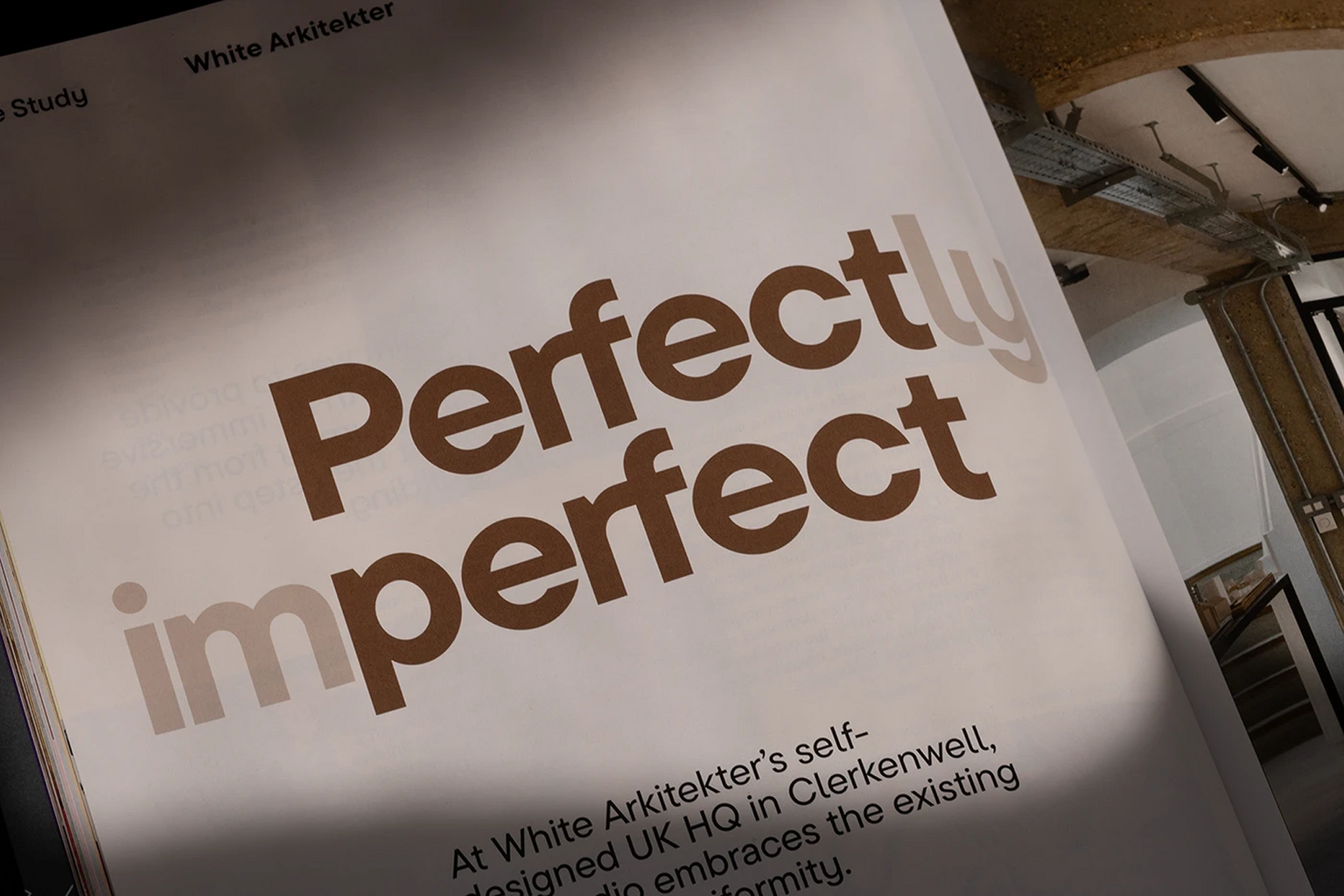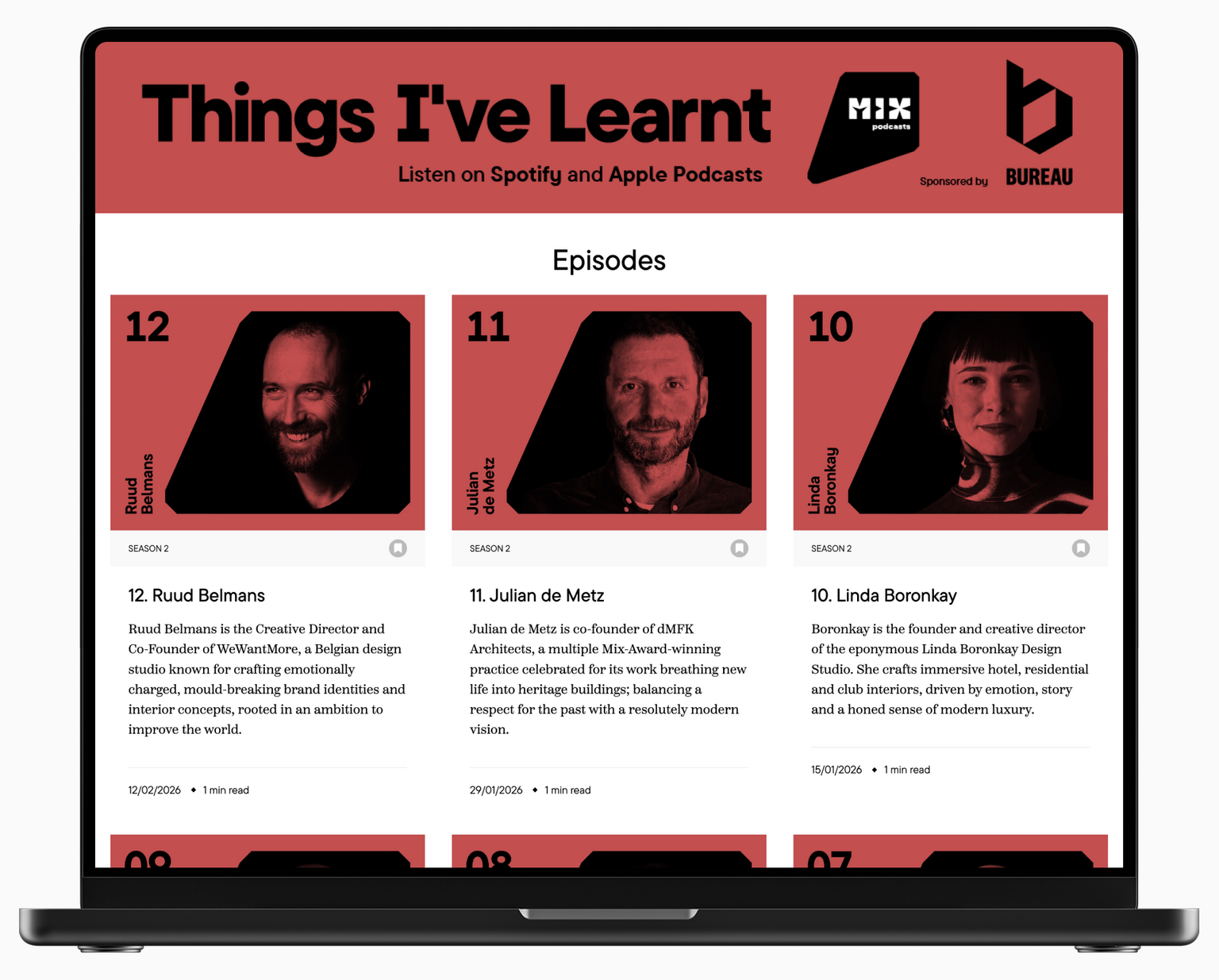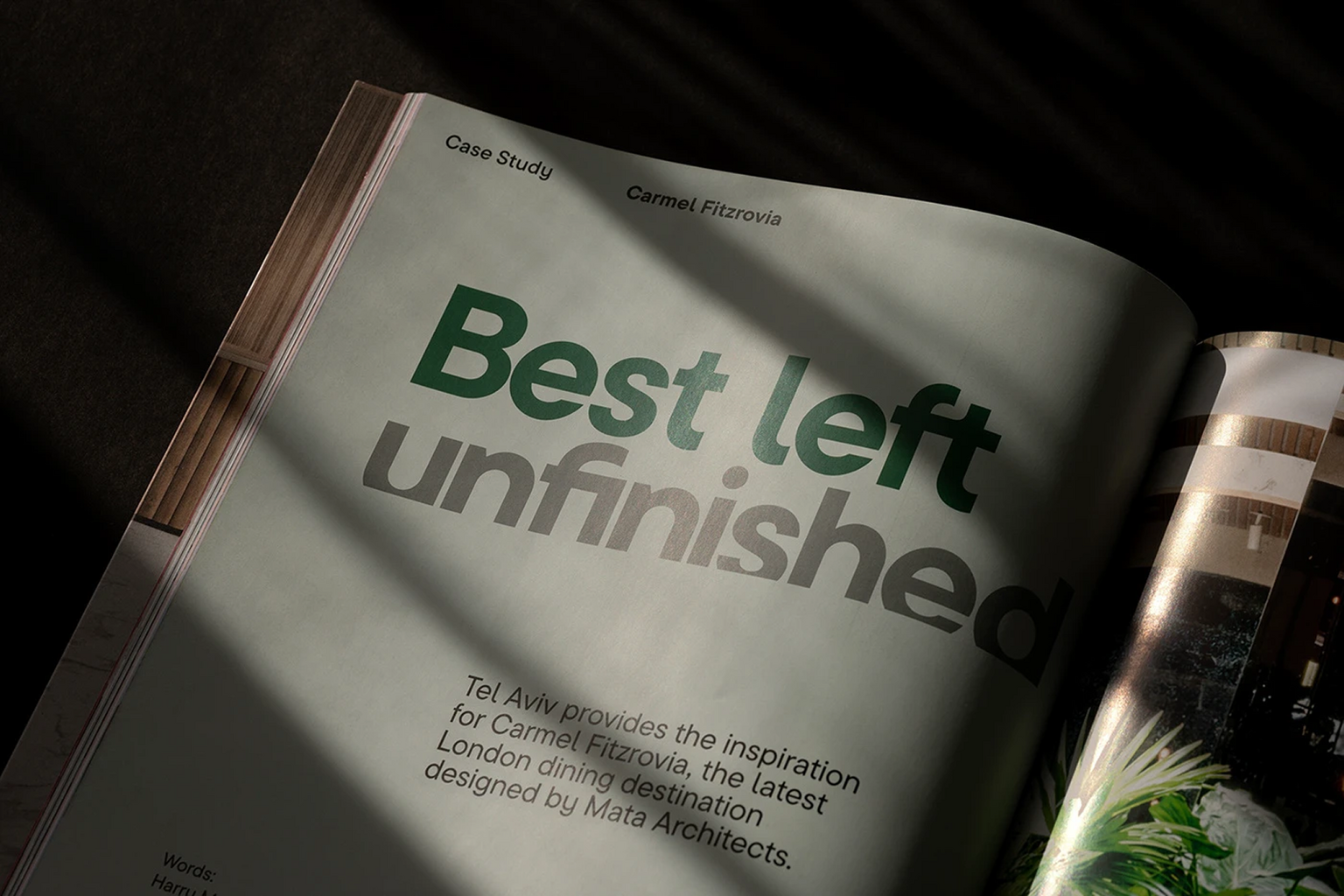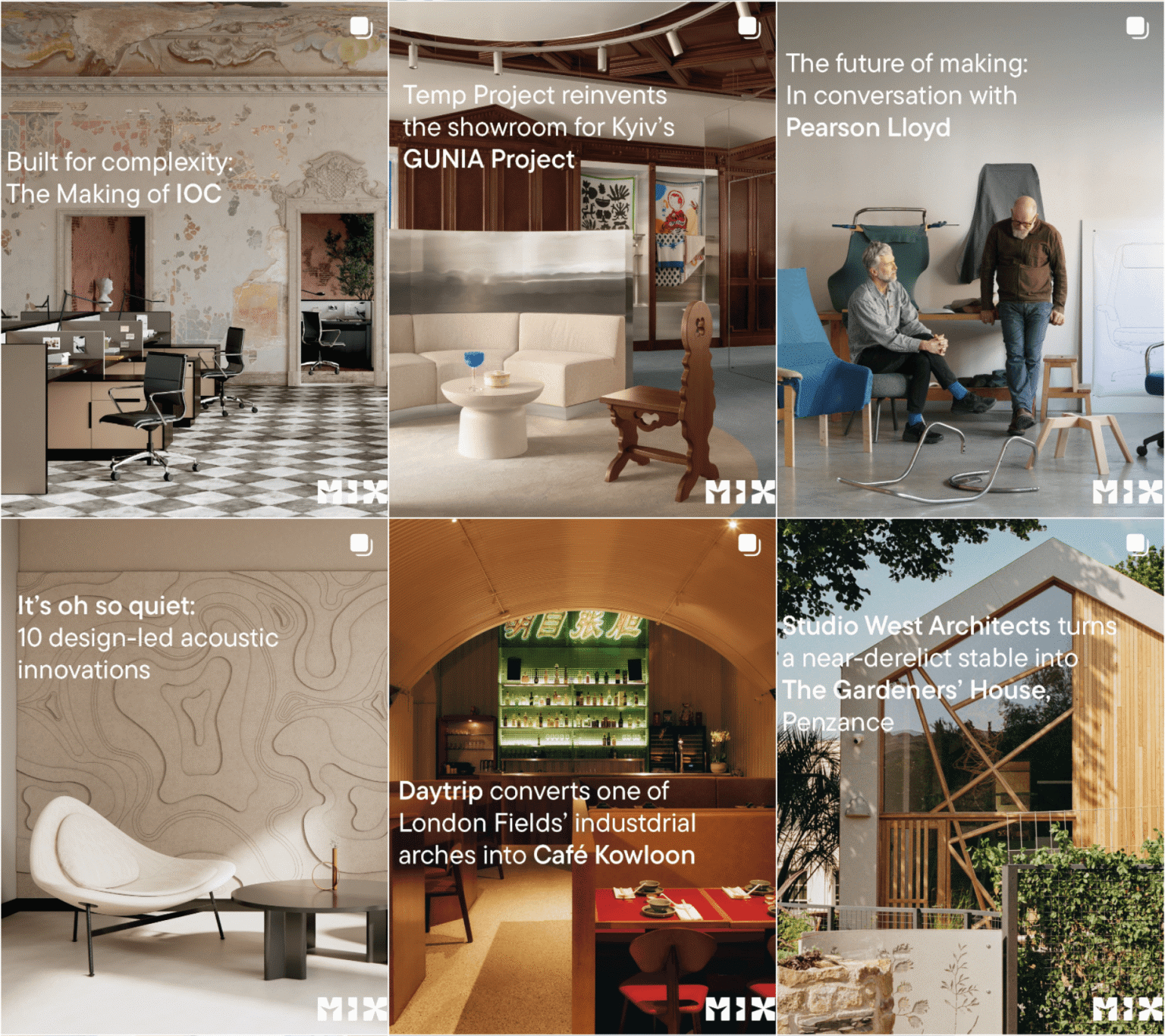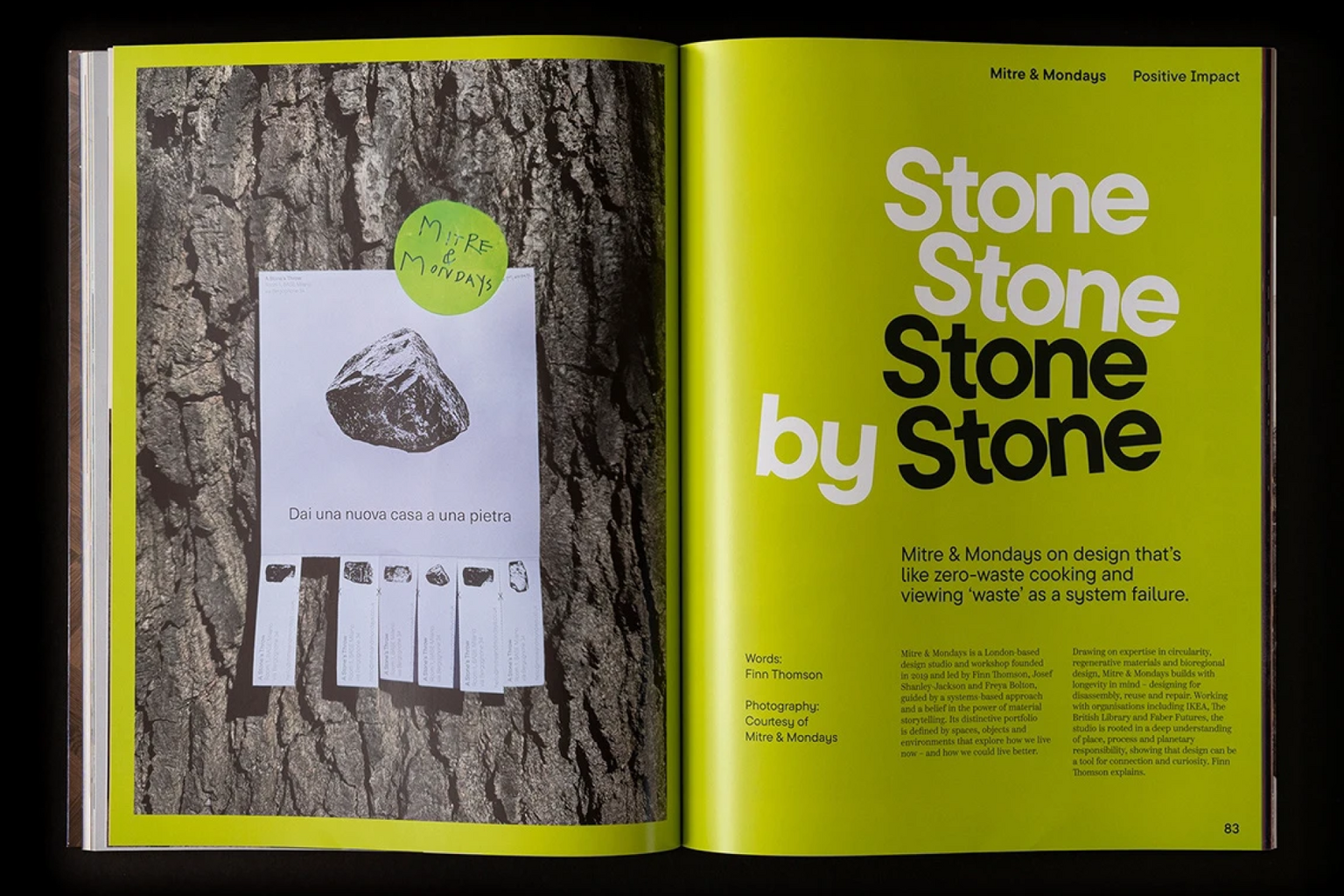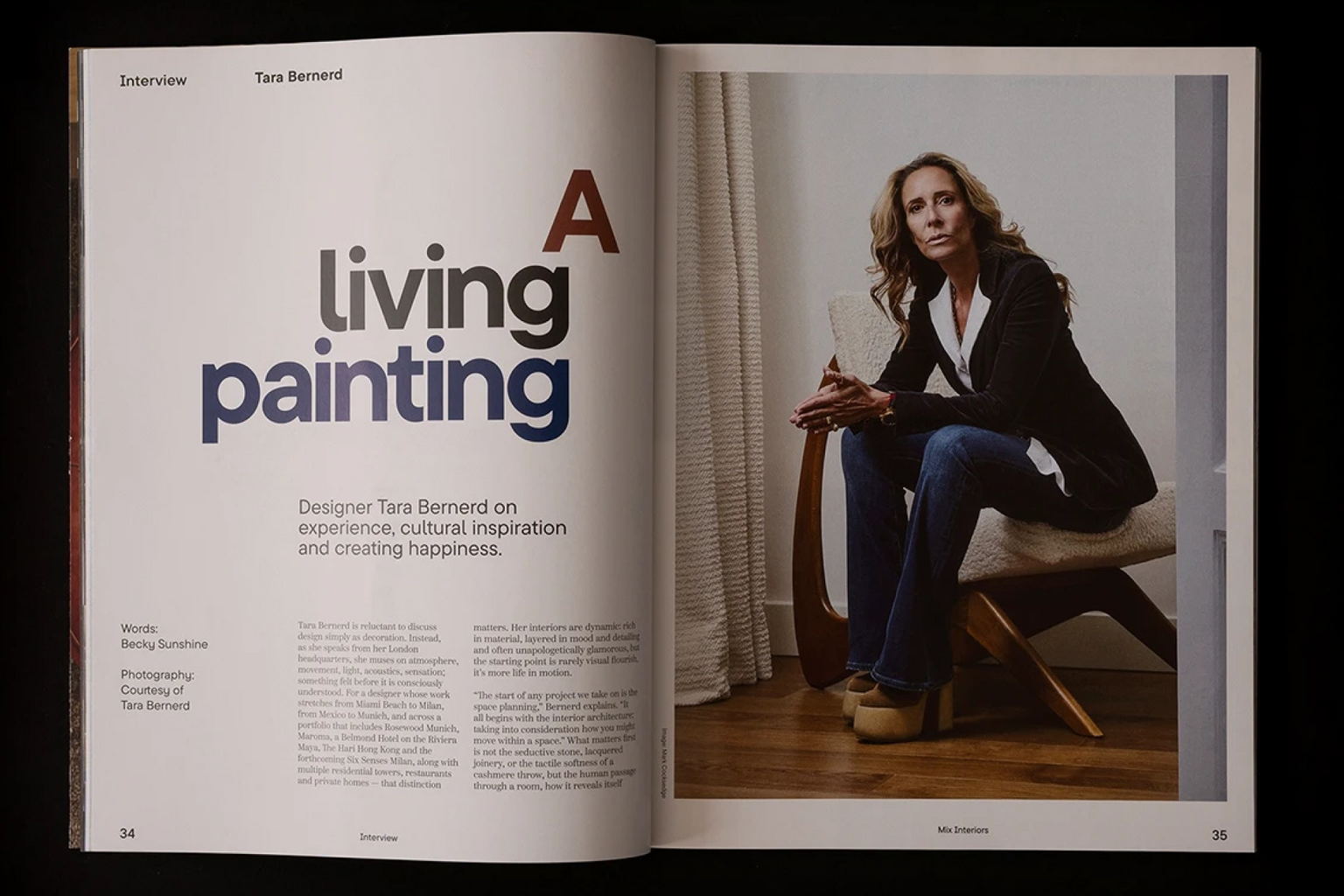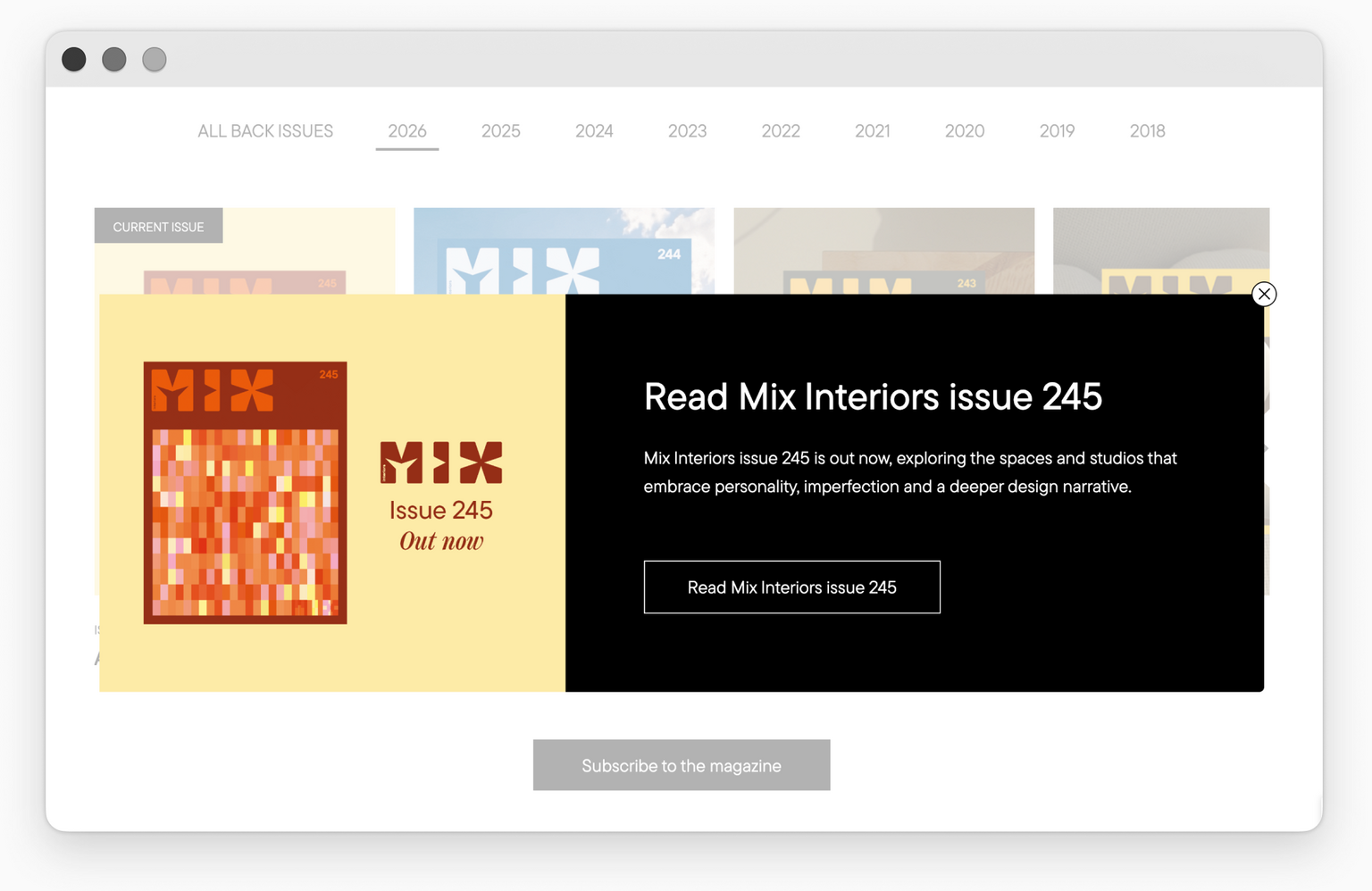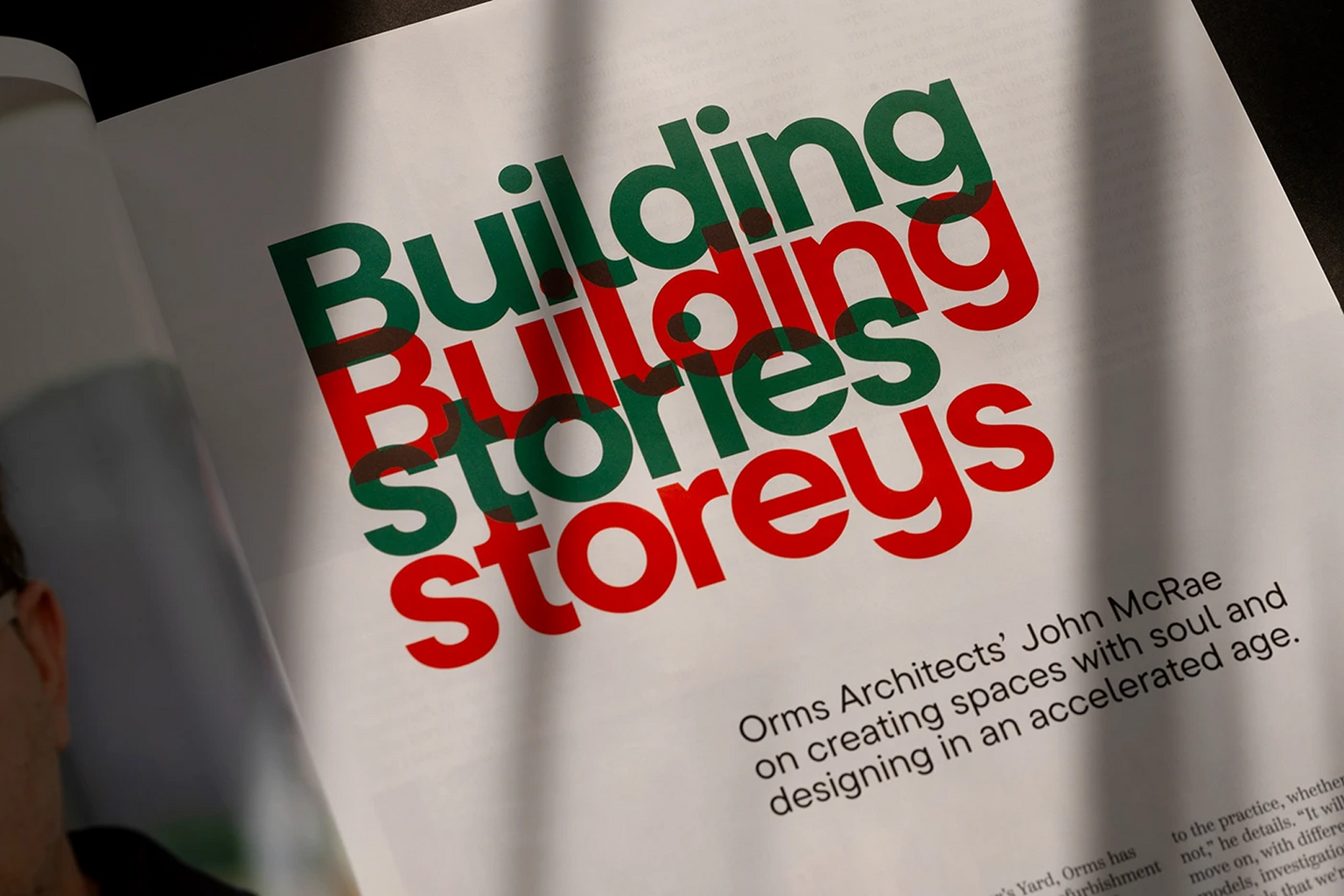
TT Commons™ Pro is the corporate font for Mix Interiors.
Mix Interiors is a British industry media outlet covering commercial interior design and architecture. The company publishes magazines, shares content on projects, products, trends, and industry professionals, and hosts professional events and awards. The versatile TT Commons™ Pro highlighted the aesthetic and modern design while maintaining its clean look.